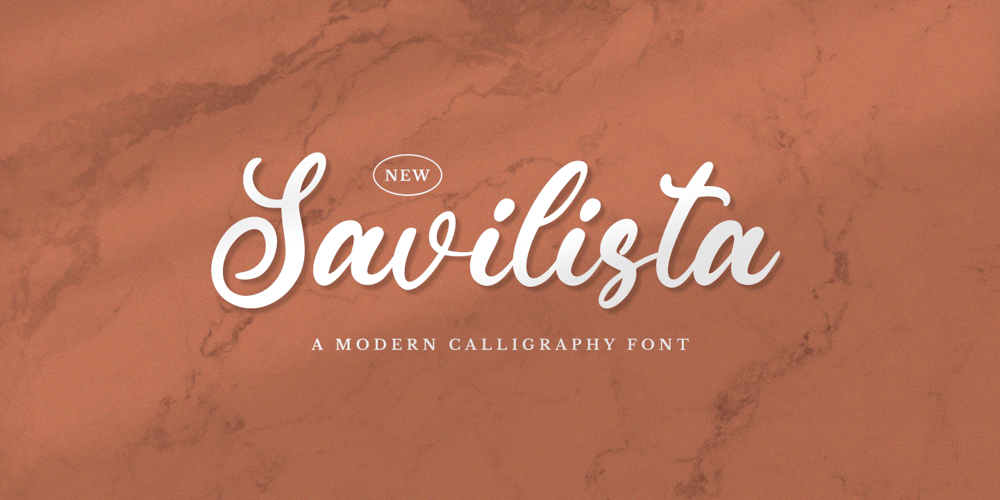
Savilista Font Family was designed by Hayinah and published by Rockboys Studio. Savilista contains 1 styles and family package options. Elevate your designs with Savilista, a modern calligraphy font that merges timeless artistry with contemporary flair. Its smooth, flowing lines and delicate curves create a captivating blend of elegance and charm, making it a perfect choice for projects that demand sophistication and a personal touch.Whether you’re designing wedding invitations, logos, social media graphics, or luxury packaging, Savilista adds a graceful and polished aesthetic to every piece.With Savilista, every word becomes a work of art. Bring your ideas to life with this enchanting and versatile font.